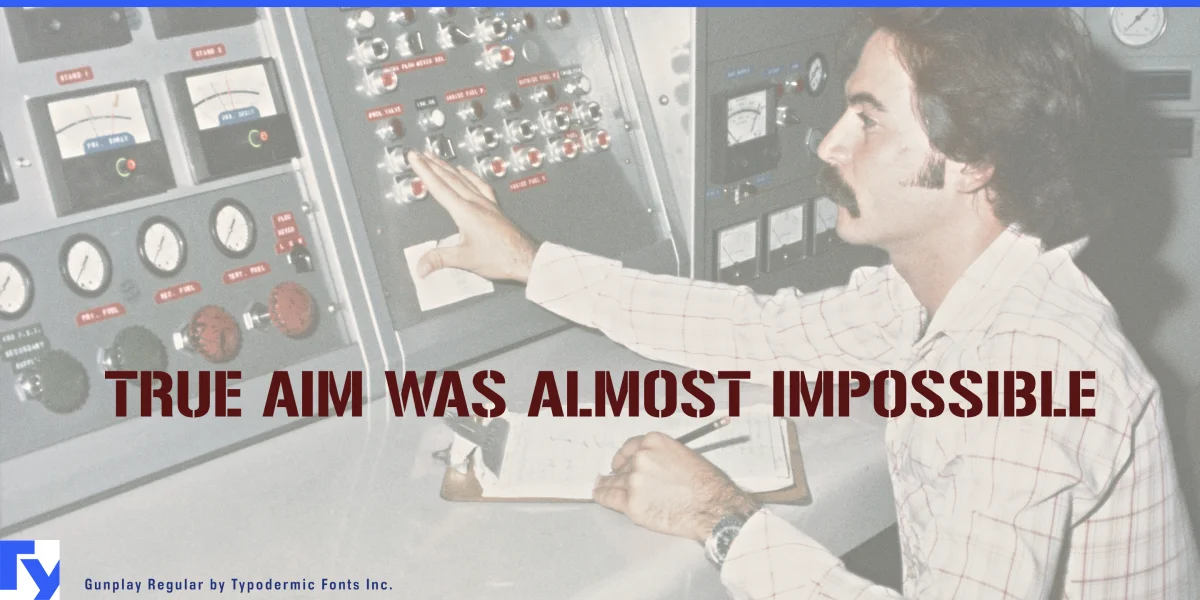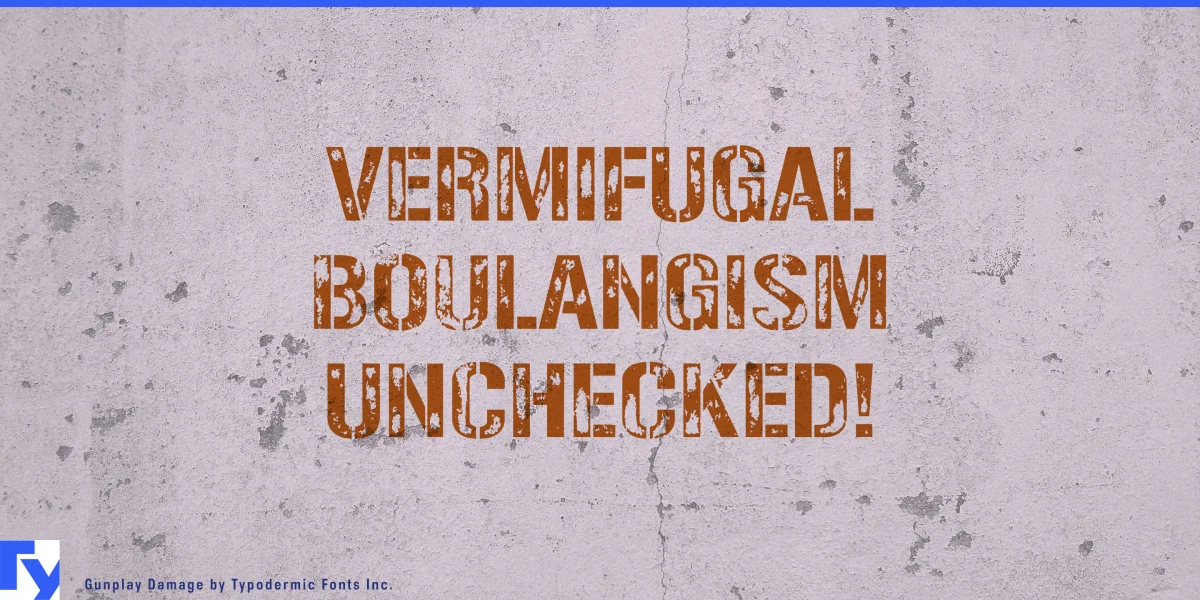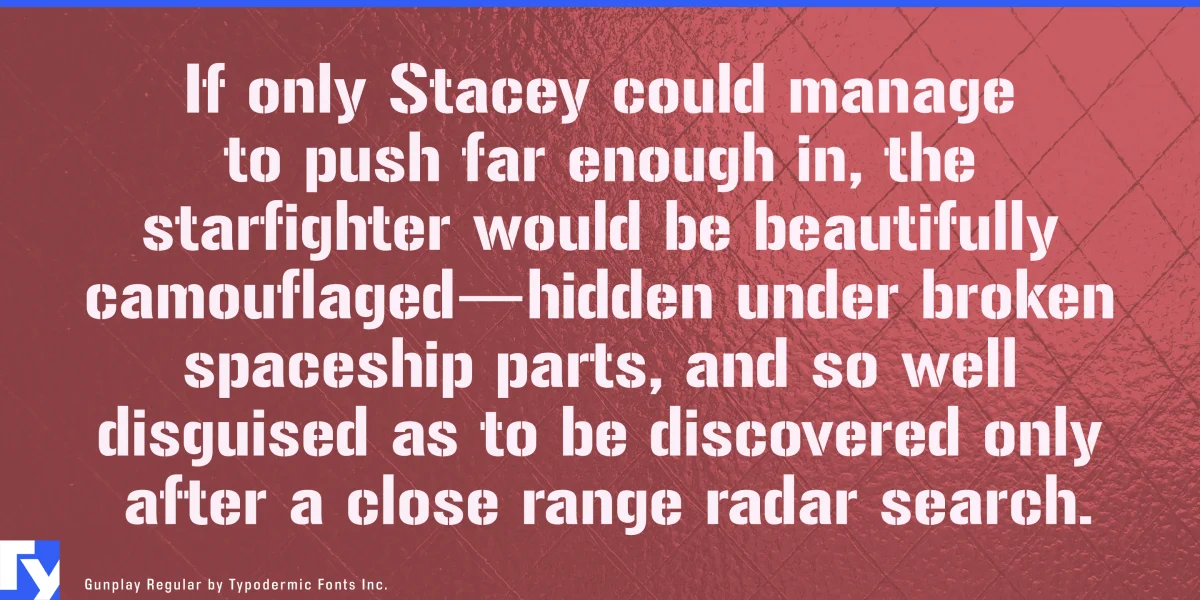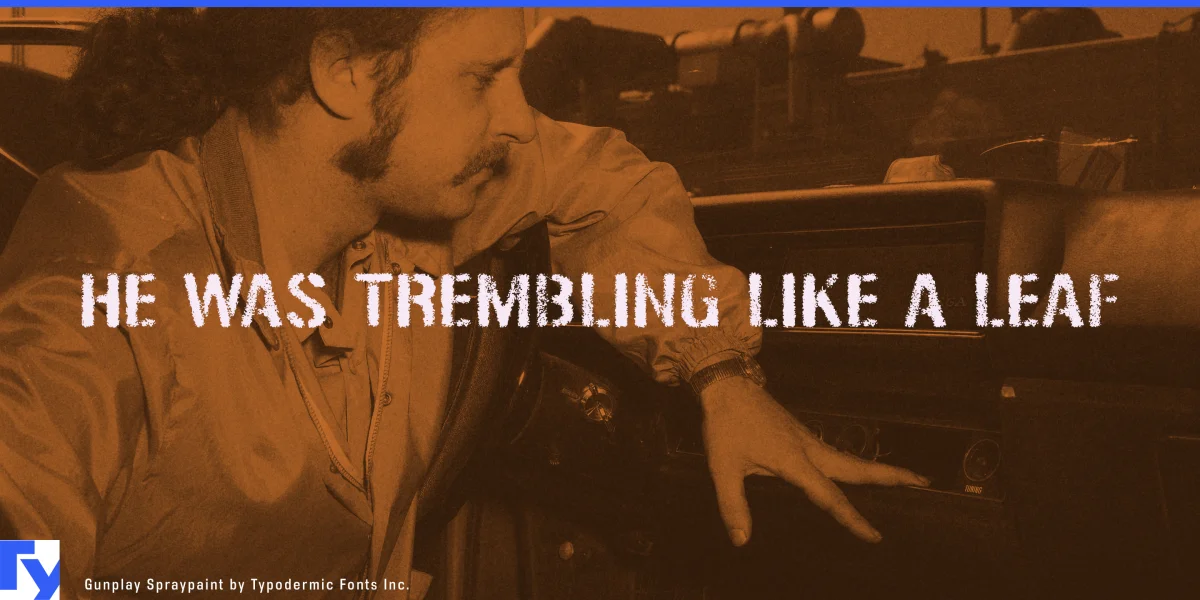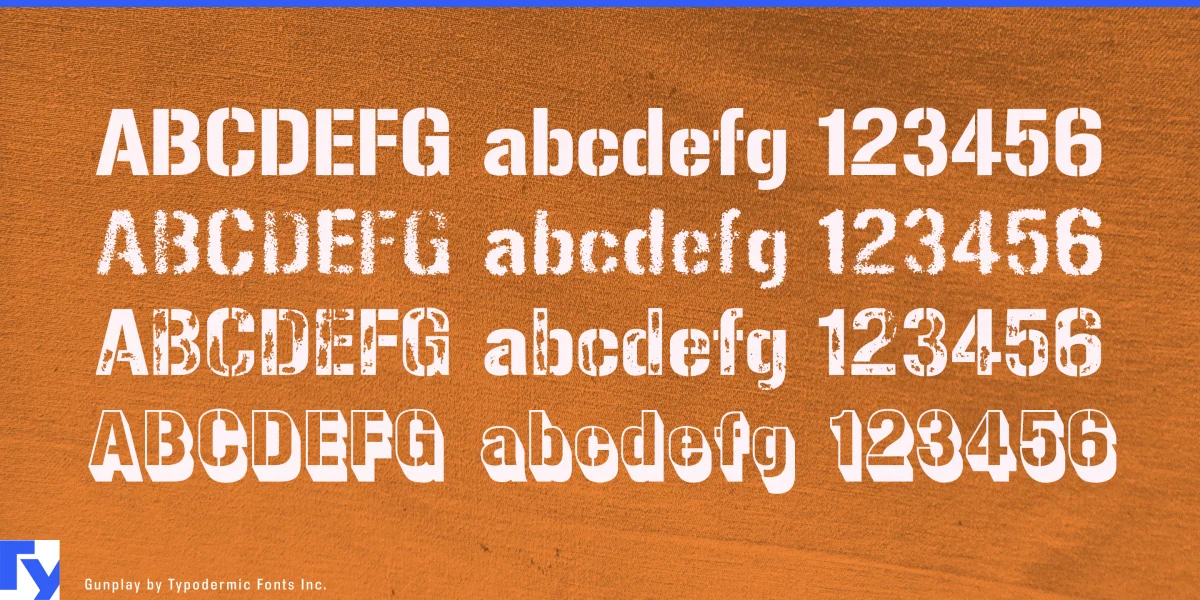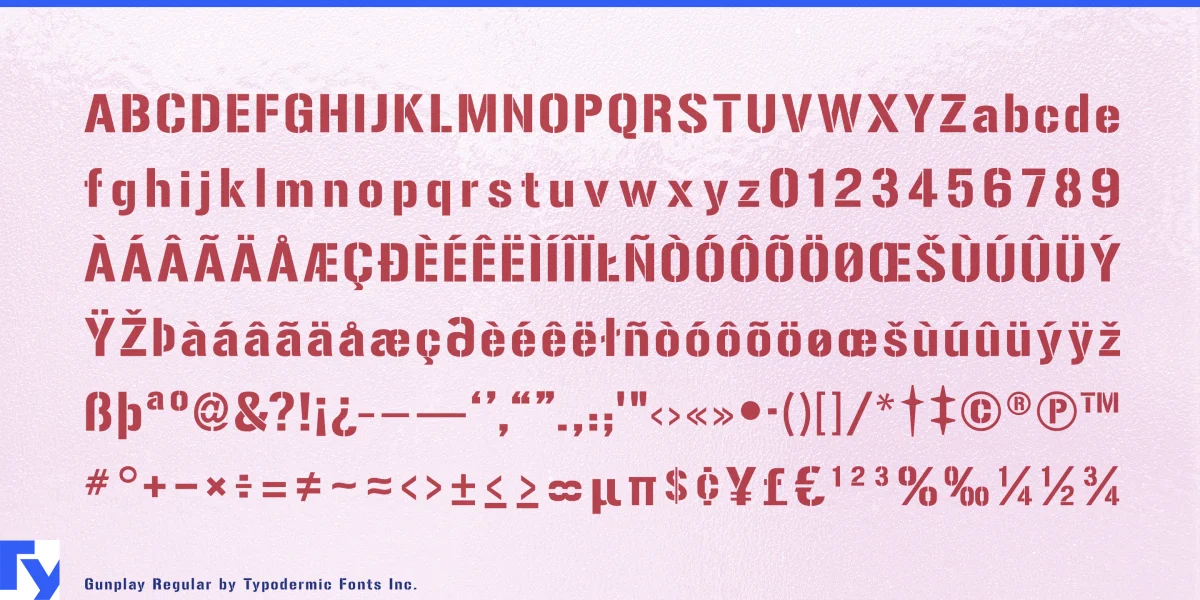
Gunplay is a tenacious stencil typeface inspired by the poster for the 1972 film The Getaway starring Steve McQueen and Ali MacGraw. This rugged-looking alphabet comes in three different special effect styles that will give your message a tough voice of authority. Some Latin-based European writing systems are supported, including the following languages. Afaan Oromo, Afar, Afrikaans, Albanian, Alsatian, Aymara, Basque, Bemba, Bikol, Breton, Cape Verdean, Creole, Catalan, Cebuano, Chamorro, Chavacano, Danish, Dawan, Dholuo, Dutch, English, Estonian, Faroese, Fijian, Filipino, Finnish, French, Frisian, Friulian, Galician, Genoese, German, Guadeloupean Creole, Haitian Creole, Hiligaynon, Icelandic, Ilocano, Indonesian, Irish, Italian, Jamaican, Kaqchikel, Kikongo, Kinyarwanda, Kirundi, Lombard, Low Saxon, Luxembourgish, Makhuwa, Malay, Ndebele, Neapolitan, Norwegian, Novial, Occitan, Papiamento, Piedmontese, Portuguese, Quechua, Rarotongan, Romansh, Sango, Saramaccan, Sardinian, Scottish Gaelic, Shona, Sicilian, Silesian, Slovak, Slovenian, Somali, Sotho, Spanish, Swahili, Swazi, Swedish, Tagalog, Tetum, Tshiluba, Tsonga, Tswana, Tumbuka, Uzbek (Latin), Venetian, Võro, Walloon, Waray-Waray, Wayuu, Xhosa, Yapese, Zapotec Zulu and Zuni.